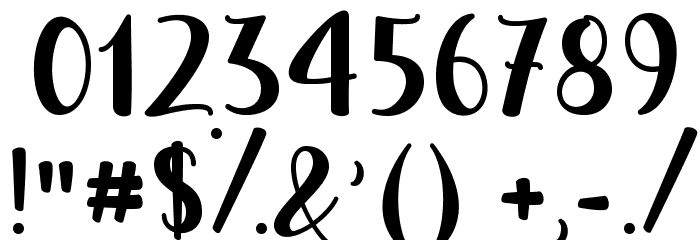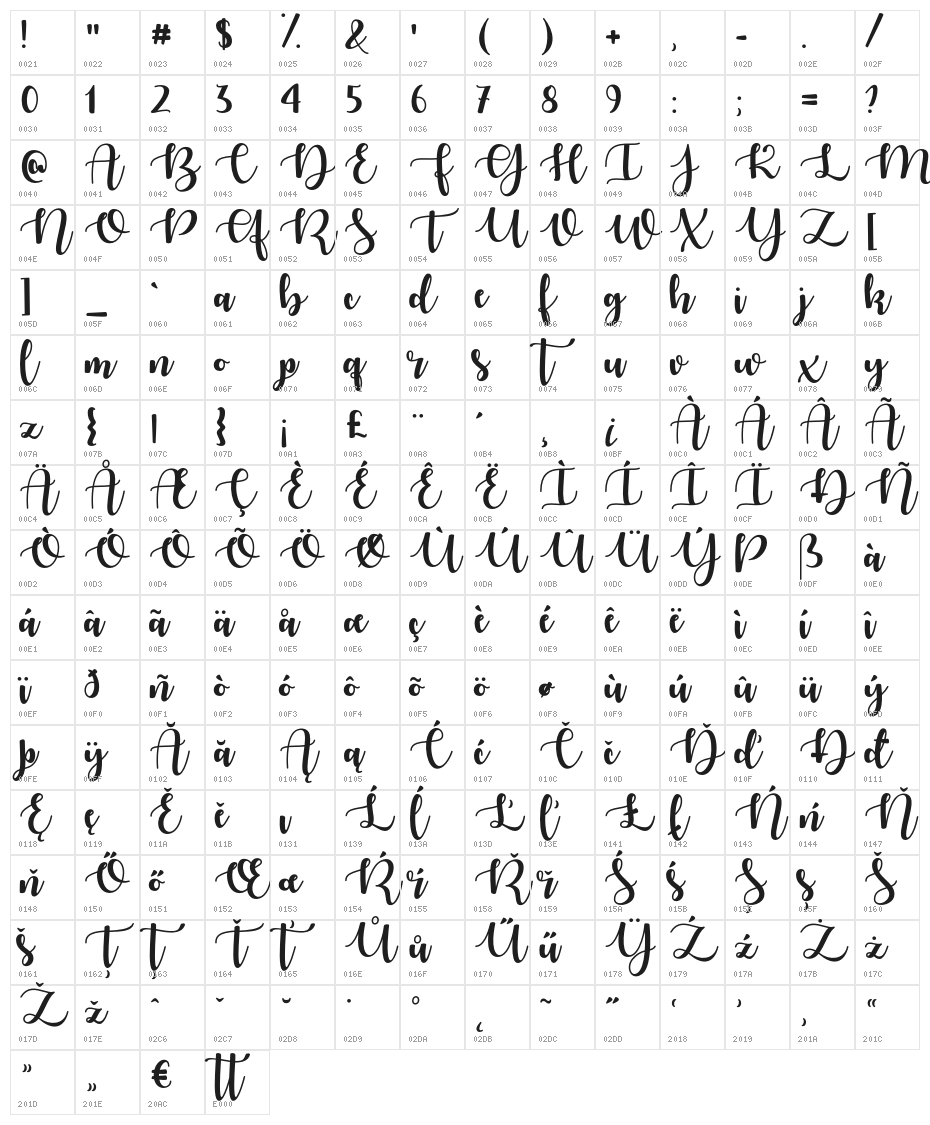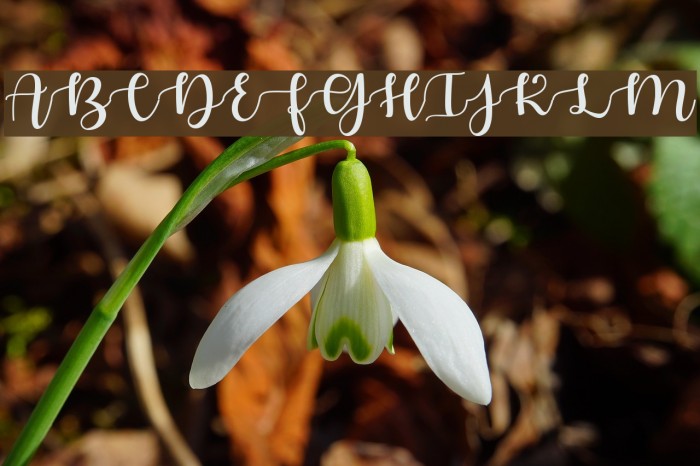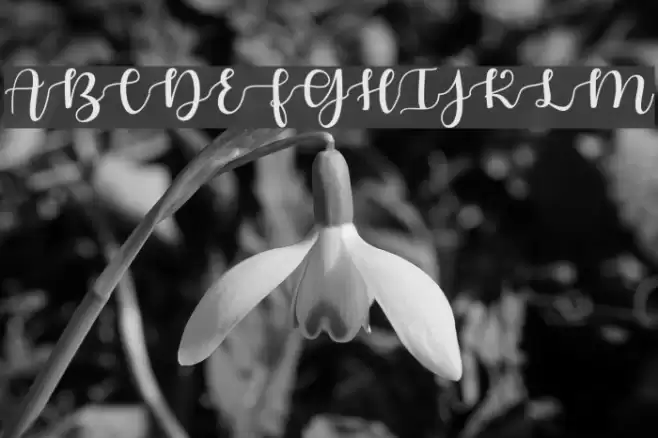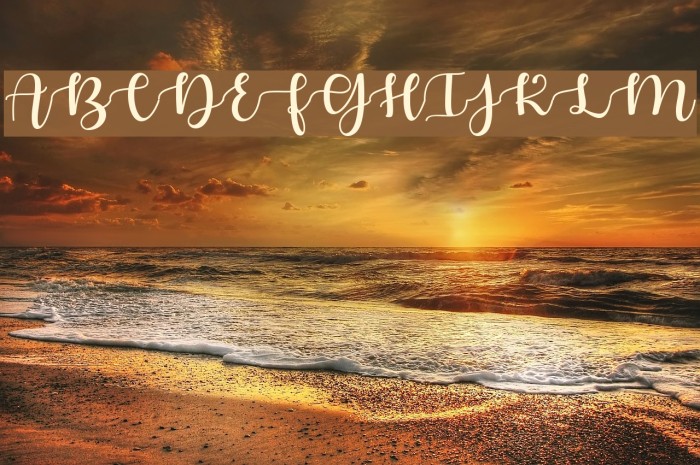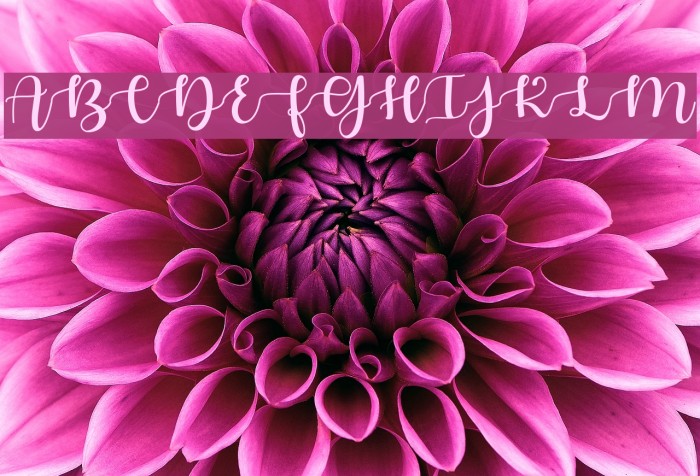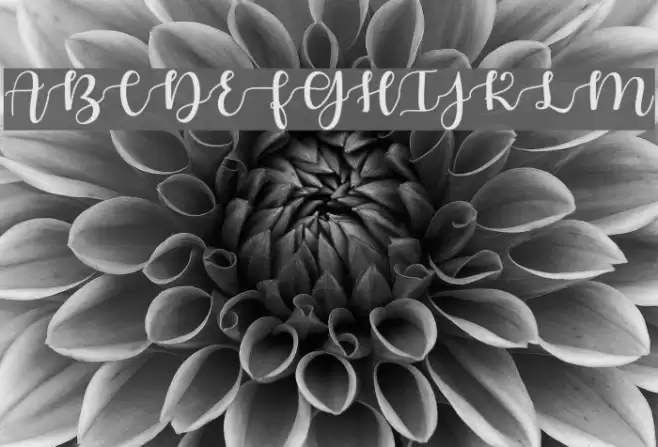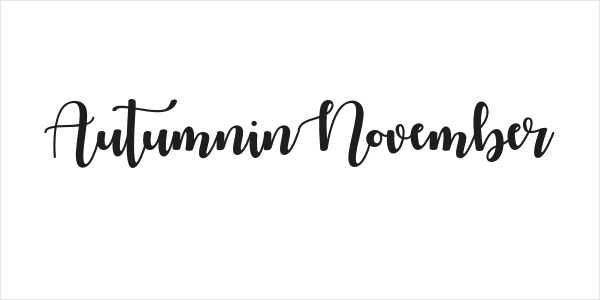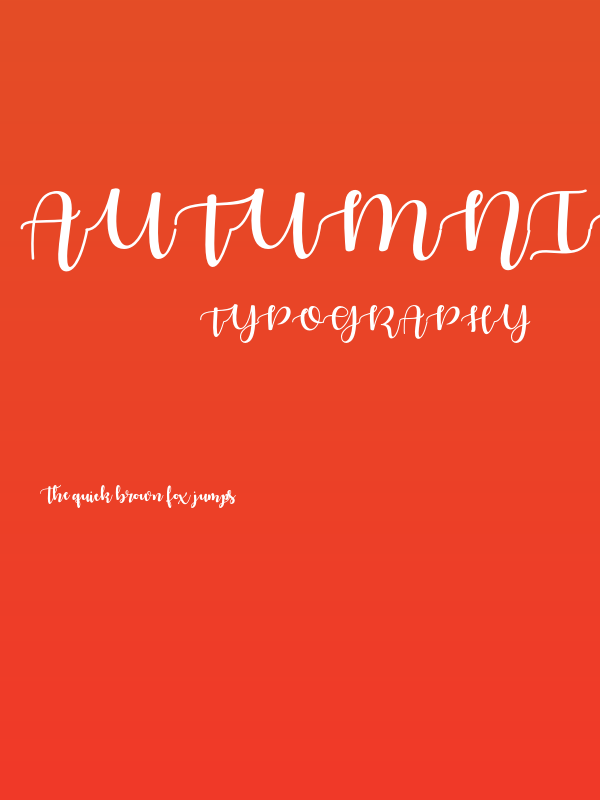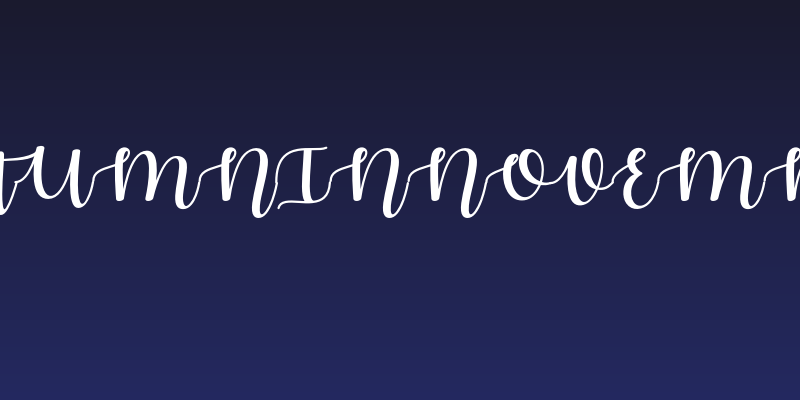
AutumninNovember Font
AutumninNovember Description
This font features a charming and flowing script style, characterized by its elegant, cursive letters that connect smoothly. The uppercase letters are slightly more formal with a consistent slant, while the lowercase letters exhibit a playful and whimsical flair, with some letters having loops and swashes. The numerals are bold and rounded, maintaining the overall fluidity of the design. Special characters are crafted with the same attention to detail, ensuring they blend seamlessly with the alphabetic characters. This font exudes a sense of warmth and creativity, making it ideal for projects that require a personal touch.
| Proposed Projects | Ideal for wedding invitations, greeting cards, branding, and social media graphics. |